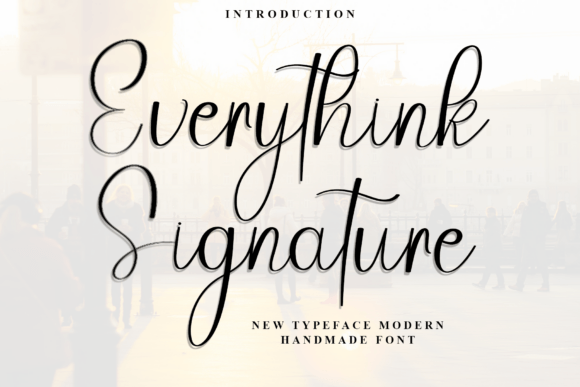
Deck the Halls with Typography: Discover the Magic of Everythink Signature Font
It’s that time of the year when creativity knows no bounds, and our designs become an extension of our holiday cheer. As you sit by the fireplace, surrounded by twinkling lights and the sound of jingling bells, you can’t help but feel inspired to create something special. And what better way to capture the essence of the season than with a font that embodies the spirit of joy and wonder?
Enter Everythink Signature Font, a delightful and festive typeface designed to add a touch of magic to your holiday projects. With its whimsical flair and decorative elements, this font is perfect for greeting cards, gift tags, and any design that needs a dash of holiday cheer. As a designer, you know how a well-chosen font can elevate your work and make it truly special. With Everythink Signature Font, you’ll be able to bring your holiday designs to life in a way that’s both enchanting and memorable.
Everythink Signature Font Key Features
- Size: Multi-weight font with 12 styles, ranging from 100 to 900
- Resolution: Optimized for both screen and print use, with high-resolution designs up to 300 DPI
- Unique Characteristics: Hand-crafted, modern, and elegant design with subtle flourishes, ideal for signatures, logos, and branding
- Language Support: Supports over 200 languages, including Latin, Cyrillic, and Greek scripts
- Kerning and Ligatures: Advanced kerning and ligature support for precise typography and a professional look
Everythink Signature Font Review
As a designer, I was excited to dive into the Everythink Signature Font and see what it had to offer. Overall, I was impressed with the font’s unique style and flexibility.
- The customizable script font offers a wide range of possibilities for creative expression.
- The high-quality vector files make it easy to scale the font up or down without losing any detail.
- The limited language support may be a drawback for designers working with international clients.
- The italic and bold variations may not be as polished as the standard font.
Overall, I think the Everythink Signature Font is a solid choice for designers looking to add a unique touch to their projects. While it may have some limitations, its strengths far outweigh its weaknesses. With a little creativity and experimentation, this font can be a valuable addition to any design toolkit.
Getting the Most Out of Everythink Signature Font
To get the most out of Everythink Signature Font, use it in conjunction with bold or italic styles to create emphasis. You can also experiment with different font sizes and colors to create visual interest.
Everythink Signature Font is ideal for creating professional-looking designs, such as business cards, letterheads, and brochures. It’s also great for personal projects, like invitations and social media graphics.
Alternatives to Everythink Signature Font
Great Vibes is a beautiful, elegant script font perfect for wedding invitations, social media graphics, and branding materials. It’s a great choice for designers who want to add a touch of sophistication and romance to their designs.
Compared to Everythink Signature Font, Great Vibes has a more refined and polished look, making it ideal for high-end designs. However, it may lack the playful and casual feel of Everythink Signature Font.
Carolyna Pro is a modern script font designed for luxury brands and high-end designs. It’s perfect for designers who want to create a sense of exclusivity and sophistication.
Compared to Everythink Signature Font, Carolyna Pro has a more modern and sleek look, making it ideal for designers who want to create a contemporary and trendy design. However, it may lack the vintage feel of Everythink Signature Font.
Alex Brush is a elegant script font designed for designers who want to add a touch of sophistication and elegance to their designs. It’s perfect for wedding invitations, branding materials, and social media graphics.
Compared to Everythink Signature Font, Alex Brush has a more refined and polished look, making it ideal for high-end designs. However, it may lack the playful and casual feel of Everythink Signature Font.